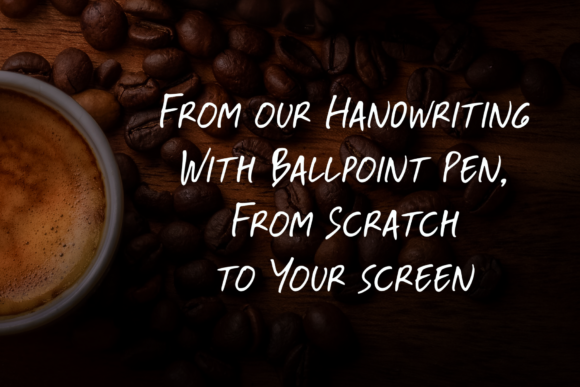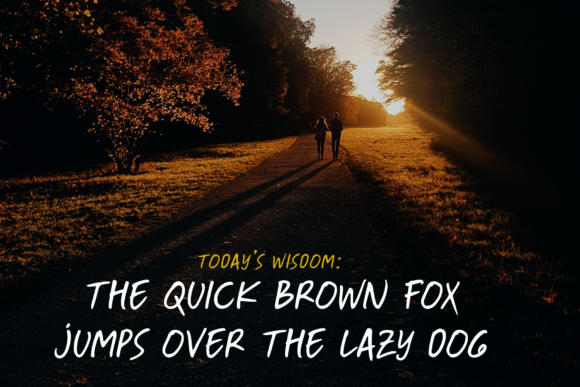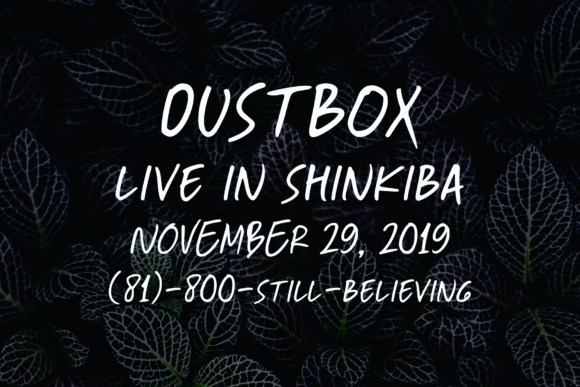
HomeScript FontsBallpoint Font Script Fonts Ballpoint Font FacebookXPinterestWhatsApp Ballpoint Font Poster 2 Ballpoint Font Poster 3 Ballpoint Font Poster 4 About Ballpoint Font Ballpoint is a casual, yet beautiful script. Use it to add a relaxed style to any creative project. DOWNLOAD NOW People also explored Selectric Script Font Roquer Font Bready Font Bokretan Font Parsley Sauce Font Pretty Valentine Font Emily Cute Font Malista Script Font Coopman 301 0 TagsBallpoint Font Previous articleMilky Way FontNext articleBetter Dreams Font LEAVE A REPLY Cancel reply Comment: Please enter your comment! Name:* Please enter your name here Email:* You have entered an incorrect email address! Please enter your email address here Website: Save my name, email, and website in this browser for the next time I comment. Personal Use Free Lion Teen Personal Use Free Read more about this font William Personal Use Free Read more about this font Angelia Personal Use Free Read more about this font Beloved Script Personal Use Free Read more about this font BLOG How to Cut Any Font on Cricut: Convert a Font to SVG (Free) Turn any font into a clean SVG so it cuts crisp on Cricut - a quick 3-step workflow using a free font-to-SVG tool. Free vs Paid Fonts: Why Investing in Premium Fonts Is Worth It Free Fonts Risk: Why Free Fonts Can Be Dangerous for Designers Top 7 Google Fonts Alternatives for Faster and Privacy-Friendly Web Design (2025)